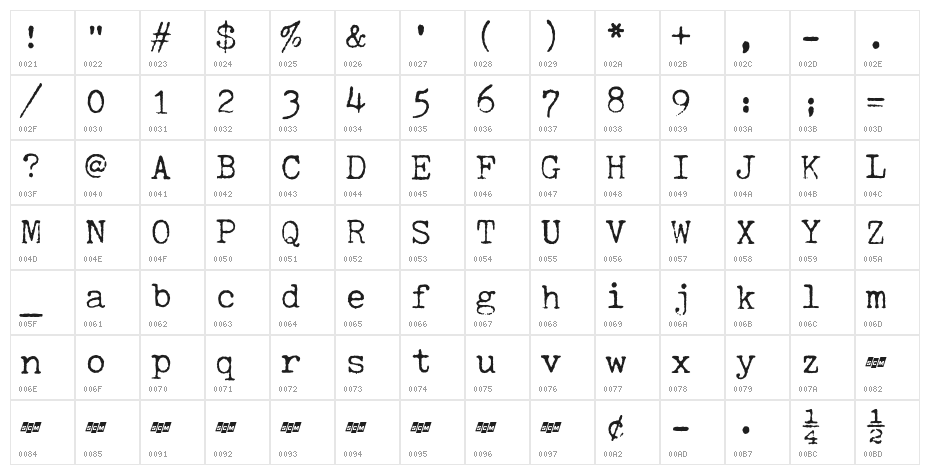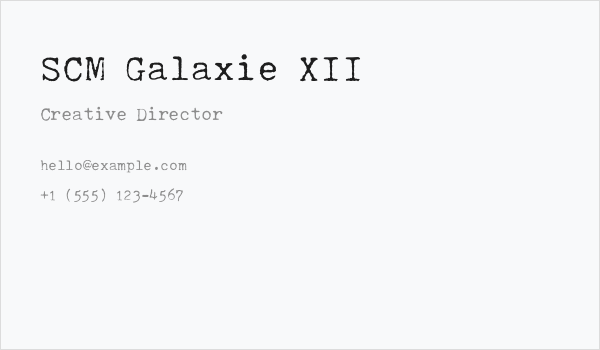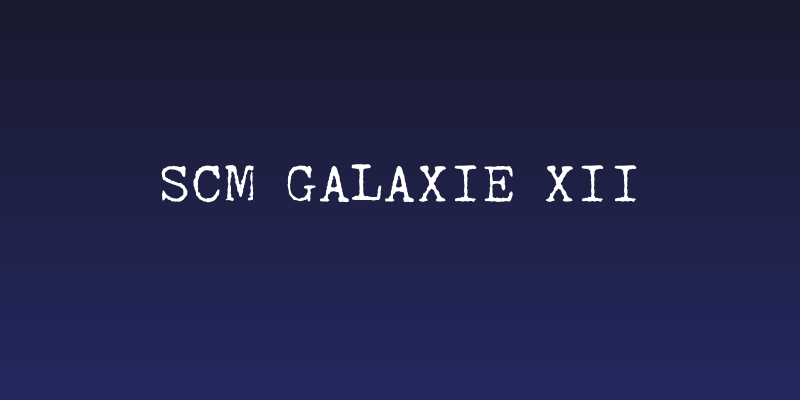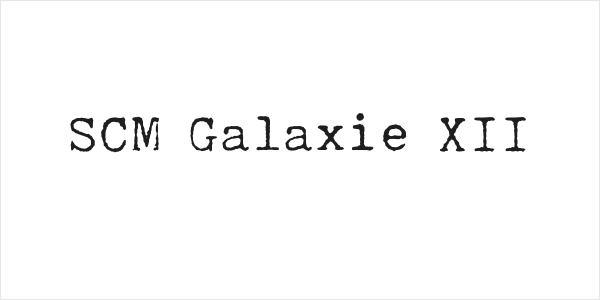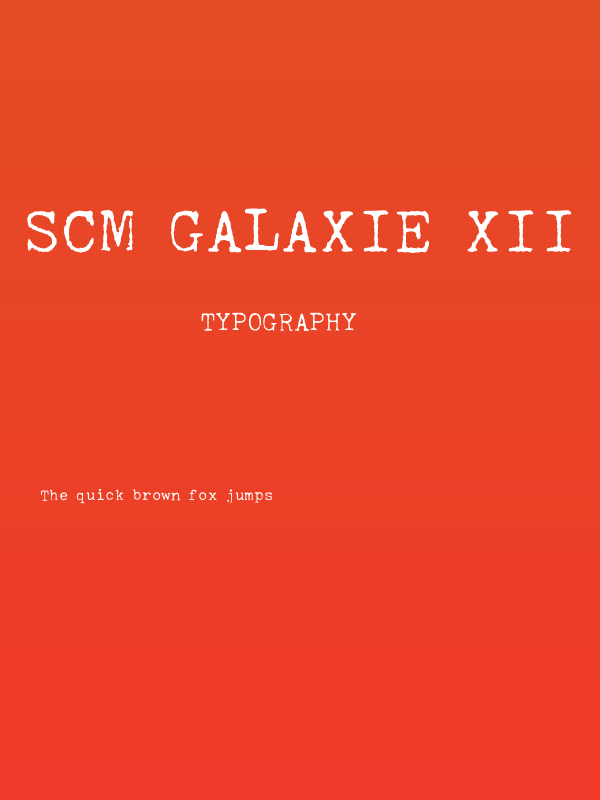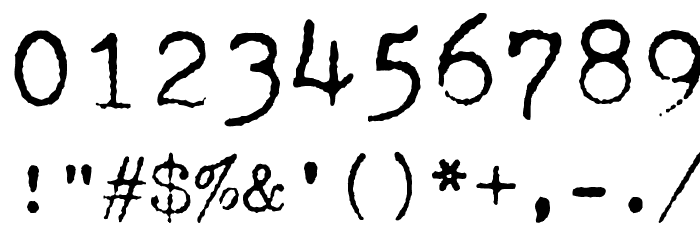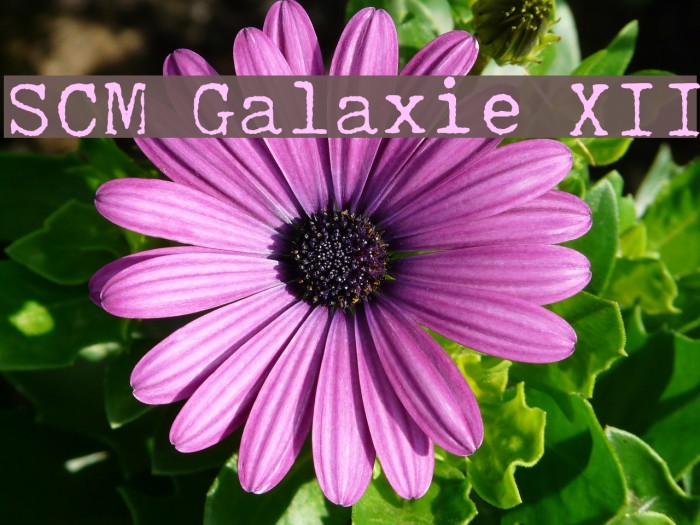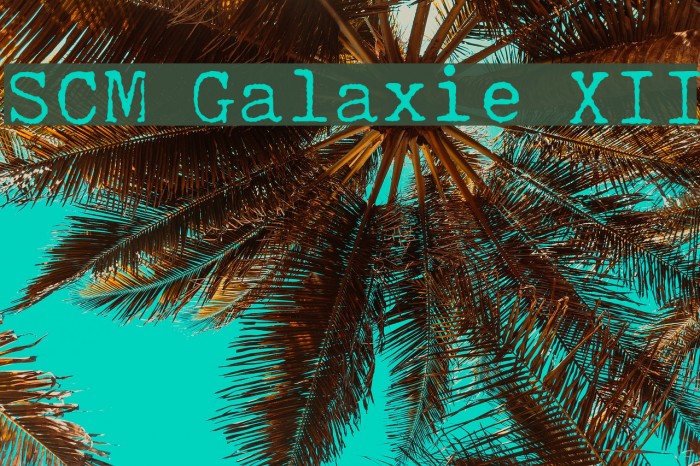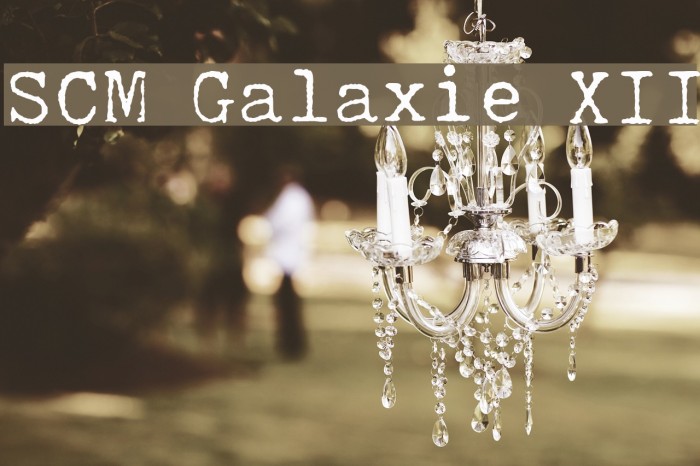
SCM Galaxie XII Font
SCM Galaxie XII Description
This typeface exudes a vintage, typewriter-inspired aesthetic with a distinctively rough and textured appearance. Each character is imbued with a sense of history, as if printed on an old, well-used typewriter. The uppercase and lowercase letters maintain a consistent style, with slightly irregular edges that add to the authentic, worn look. Numbers and special characters follow the same design ethos, ensuring a cohesive appearance across all glyphs. The font's unique charm lies in its imperfections, making it ideal for projects that require a touch of nostalgia or a handcrafted feel.
| Overall Style | Vintage |
| Use Case | Headlines, Logos, Decorative text |
| Proposed Projects | Ideal for retro-themed designs, vintage posters, book covers, and any project seeking a nostalgic or handcrafted look. |